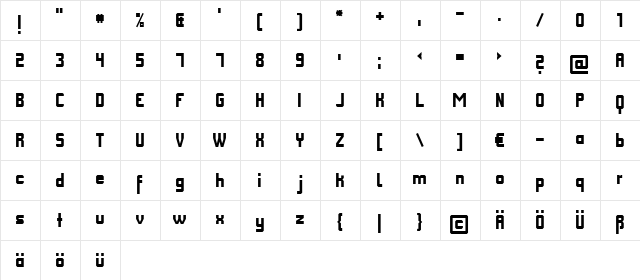
FM College Team Regular
Design Context for FM College Team Typeface
FM College Team brings high-energy athletic personality to the page — its confident, muscular forms are built for impact.
Built for sports team identities, athletic apparel, event posters, and high-energy promotional material.